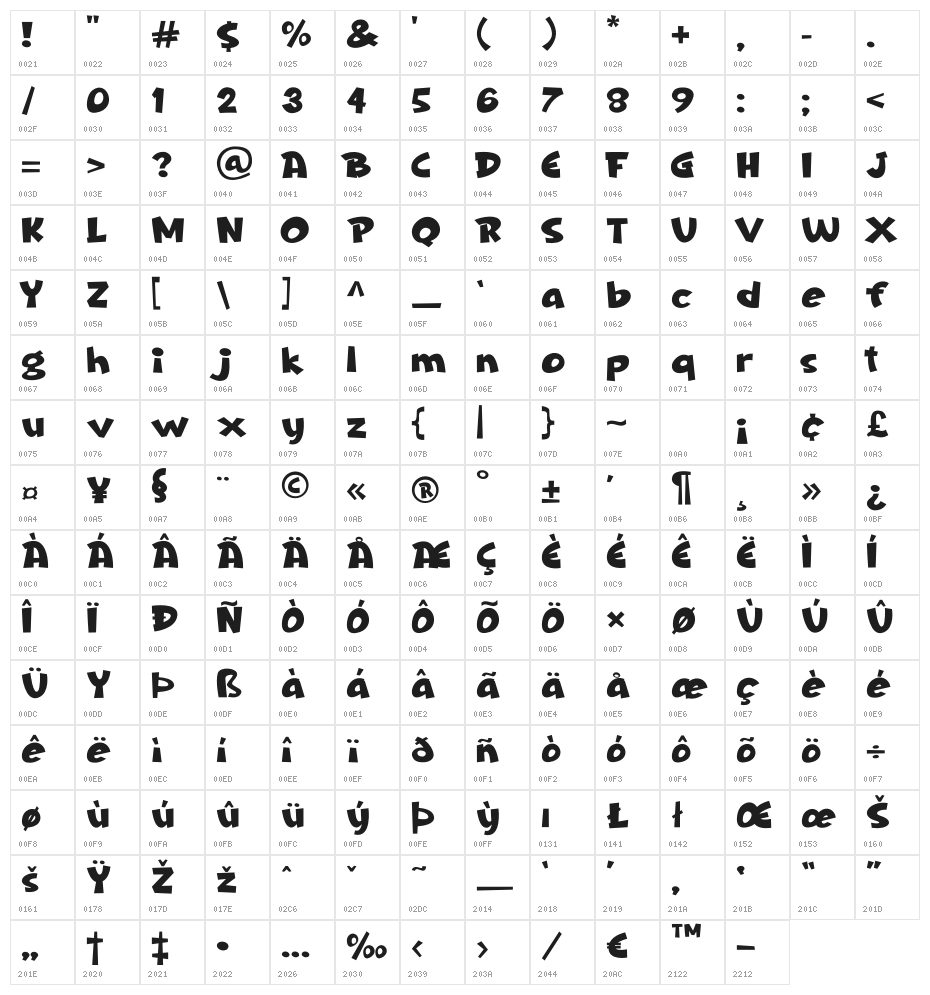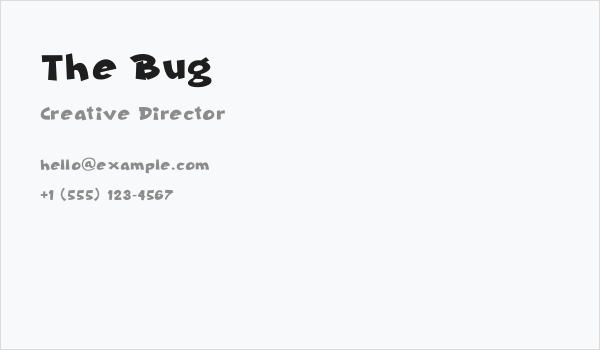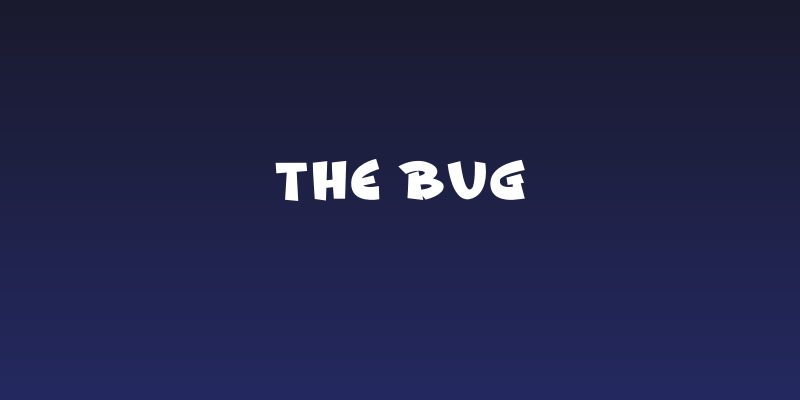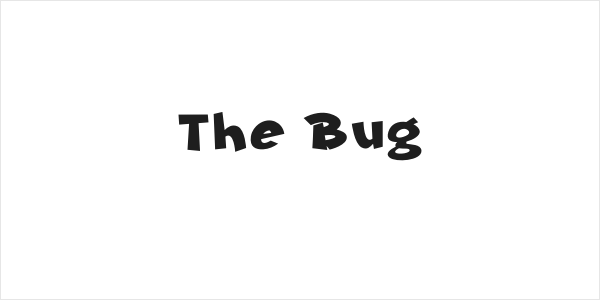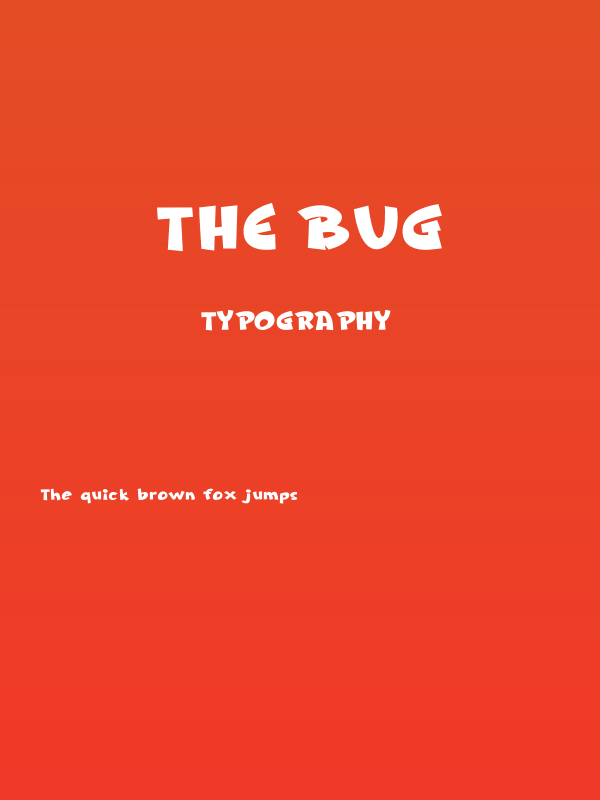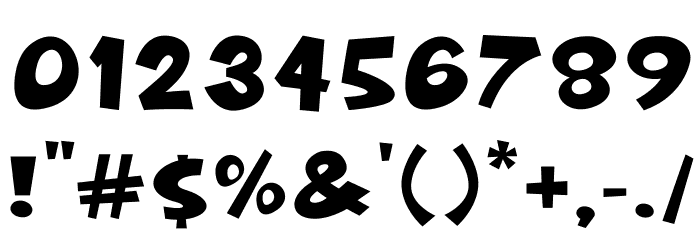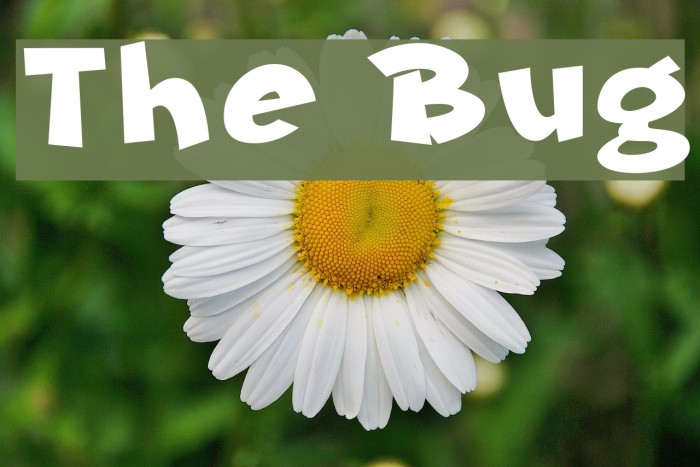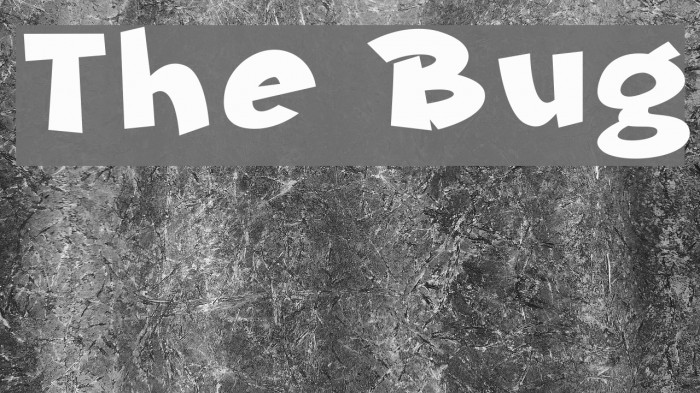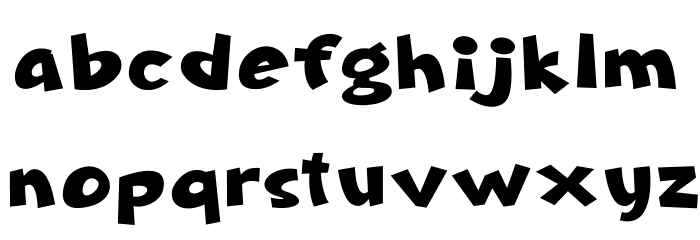
The Bug Font
The Bug Description
This font features a playful and bold design with exaggerated curves and angles, giving it a lively and dynamic appearance. The characters are thick and robust, with a slightly irregular shape that adds to its whimsical charm. The uppercase letters are particularly striking, with a strong presence and unique flair. Lowercase letters maintain the same playful style, ensuring consistency throughout the typeface. Numbers and special characters are equally bold and expressive, making them stand out. This font is perfect for projects that require a fun and engaging look.